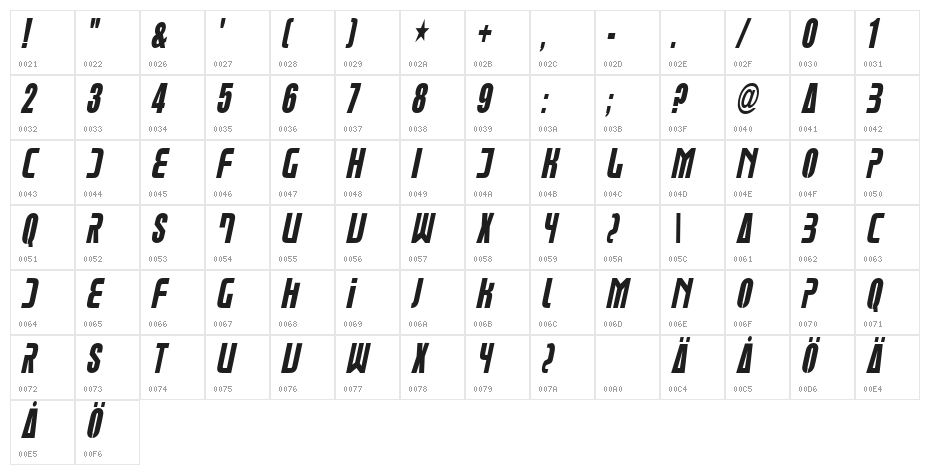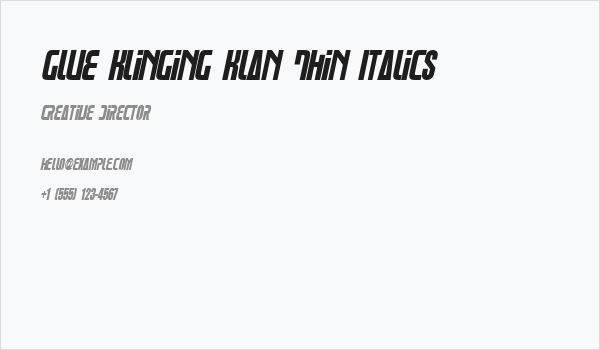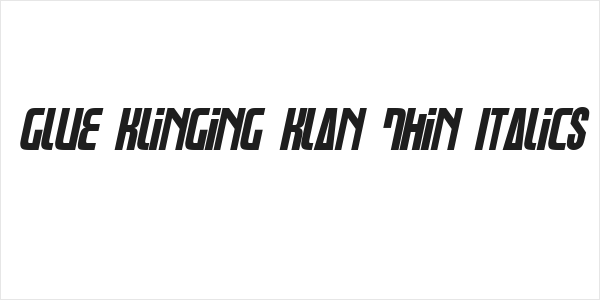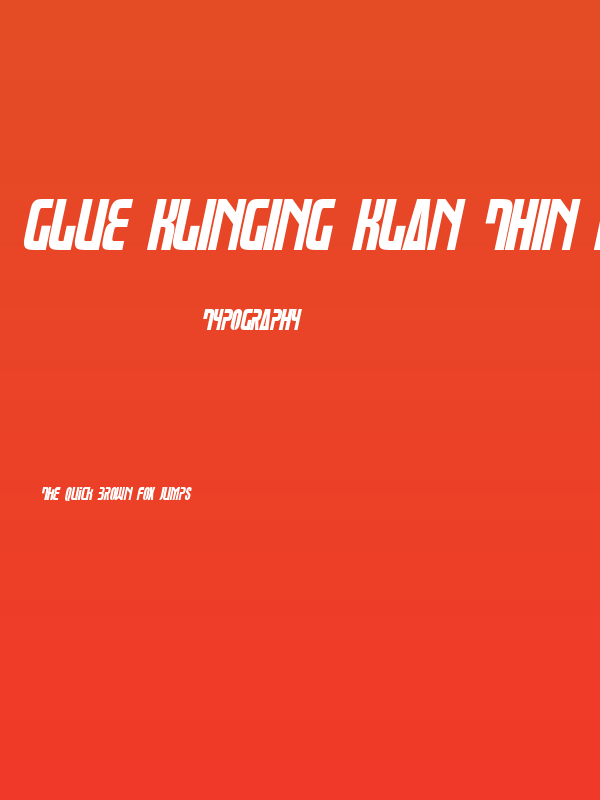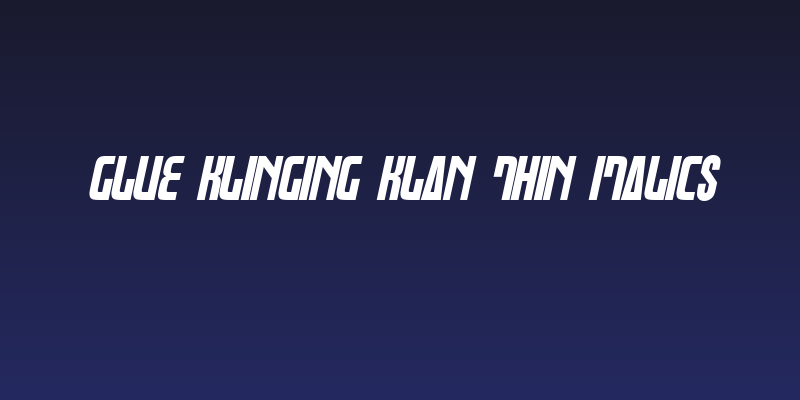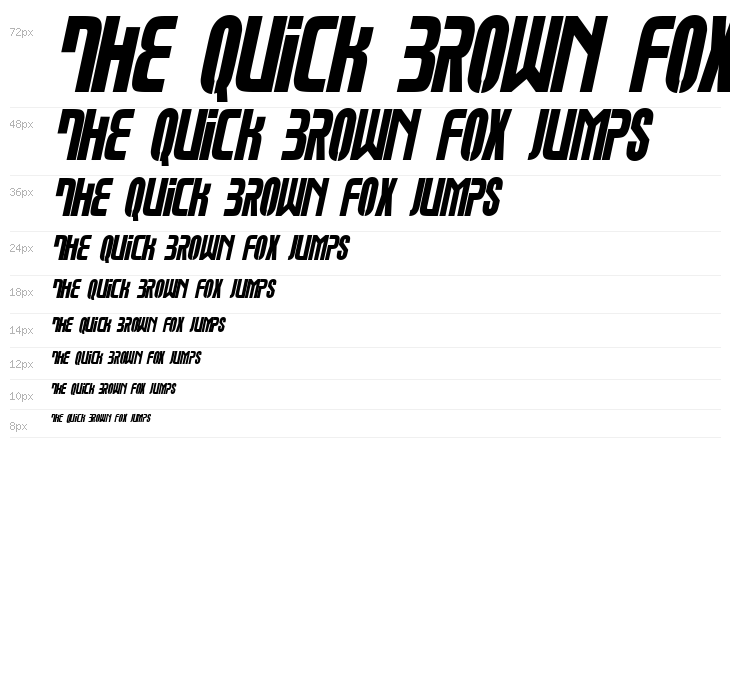
Glue Klinging Klan Thin Italics Font
Glue Klinging Klan Thin Italics Description
This font features a bold and dynamic design with a strong italic slant, giving it a sense of motion and energy. The characters are wide and have a condensed appearance, with sharp angles and a modern aesthetic. The uppercase and lowercase letters maintain a consistent style, while the numerals and special characters complement the overall look. This font is ideal for making a bold statement, with its high contrast and unique style that stands out in any design.
| Proposed Projects | Great for sports branding, dynamic posters, modern logos, and eye-catching headlines. |